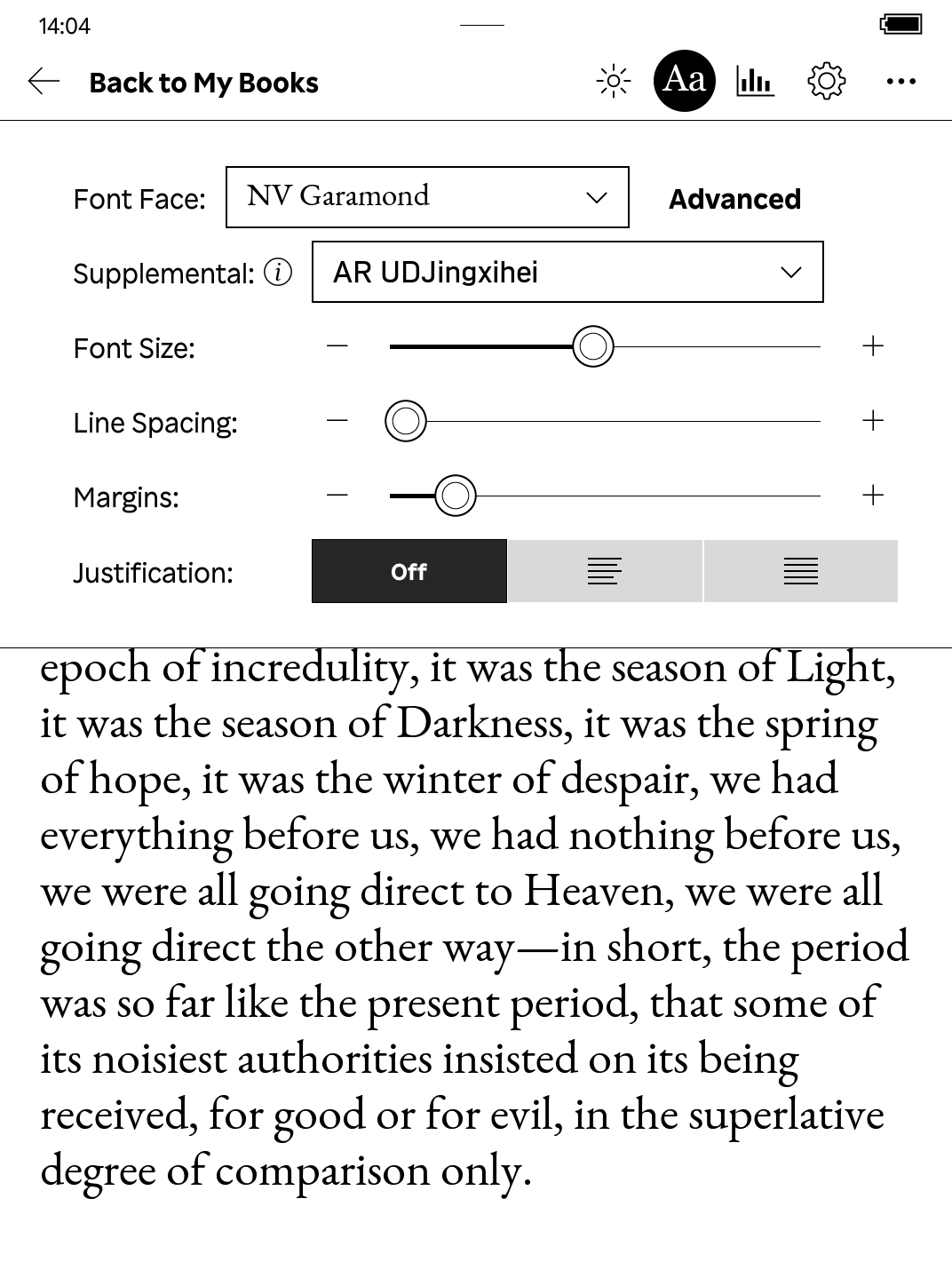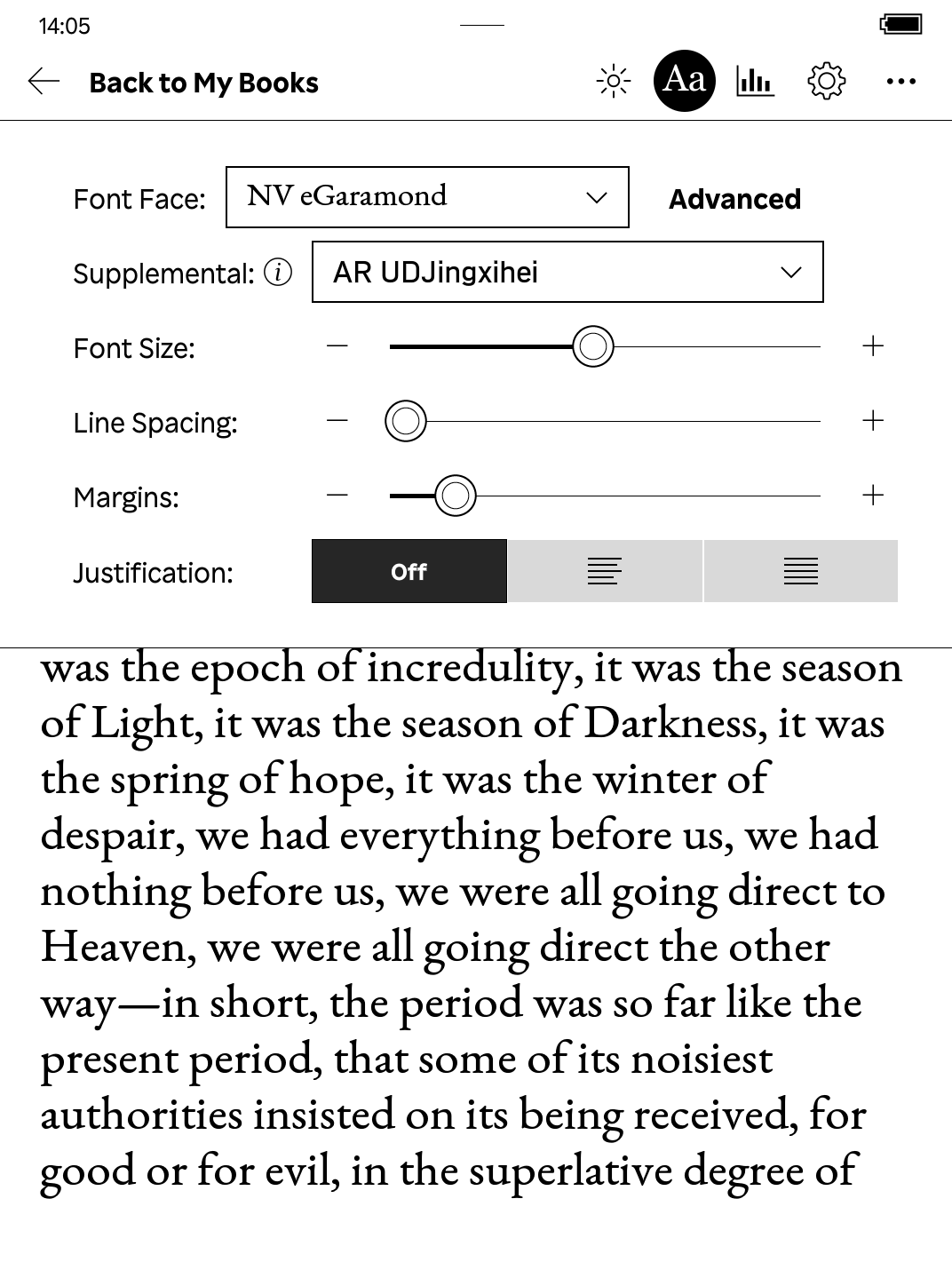
NV Garamond is an EB Garamond variant, with adjusted metrics and a 10% glyph size increase. This makes it ideal for digital reading on e-readers.
It serves a similar purpose to EB Garamond Absinthe as found on the MobileRead Forums, but other than some resized glyphs and adjusted metrics it does not contain any other alterations (default number symbols remain, for example).
Comparison
Versions
There are two versions included in the repo:
- NV Garamond (preferred): Best on Kobo. With adjusted metrics and a minor size bump. Because this one starts thinner and at a tight line spacing, you have more control over the precise weight and line spacing on Kobo devices.
- NV eGaramond: The same as above, but with a 10% bump to the regular and italic weights for better contrast on e-ink displays. Due to the weight bump, appears a bit wider (which is not my personal preference) but I've included this version as an alternative if you think the original is too thin.